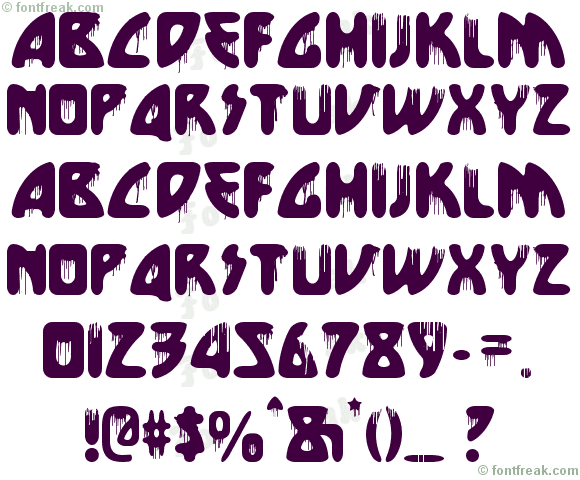
Future Blood
Future Blood by woodcutter Manero is a captivating display typeface that embodies a unique blend of modernity and intrigue. This font falls within the decorative category, featuring bold, chunky letterforms that deliver a striking visual impact. The design is characterized by its irregular stroke weights and dripping elements, which evoke a sense of energy and avant-garde style. The spacing between characters is thoughtfully crafted, allowing for readability while maintaining a dynamic appearance.
This font is ideal for a variety of creative applications. Its distinctive look makes it perfect for movie posters, where it can effectively convey a sense of action or thrill. Additionally, Future Blood can be utilized in branding for edgy restaurants or bars, helping to establish a strong identity. Wedding invitations that aim for a modern twist can also benefit from this font, adding an element of surprise and flair. Content creators looking to capture attention on social media or in promotional materials will find this typeface an engaging choice that stands out in crowded feeds.
The target audience for Future Blood includes graphic designers seeking to elevate their projects, small business owners aiming to create memorable branding, and content creators looking to make a bold statement. Its freeware license makes it accessible, allowing users to integrate this font into their designs without financial constraints.
What truly sets the Future Blood font apart is its ability to blend artistic expression with practicality. It invites creativity while ensuring versatility across various mediums. By opting for a Future Blood font free download, users can infuse their projects with a distinctive character that resonates with contemporary design trends. This typeface is not just a font; it's a statement, making it a must-have for anyone looking to stand out.